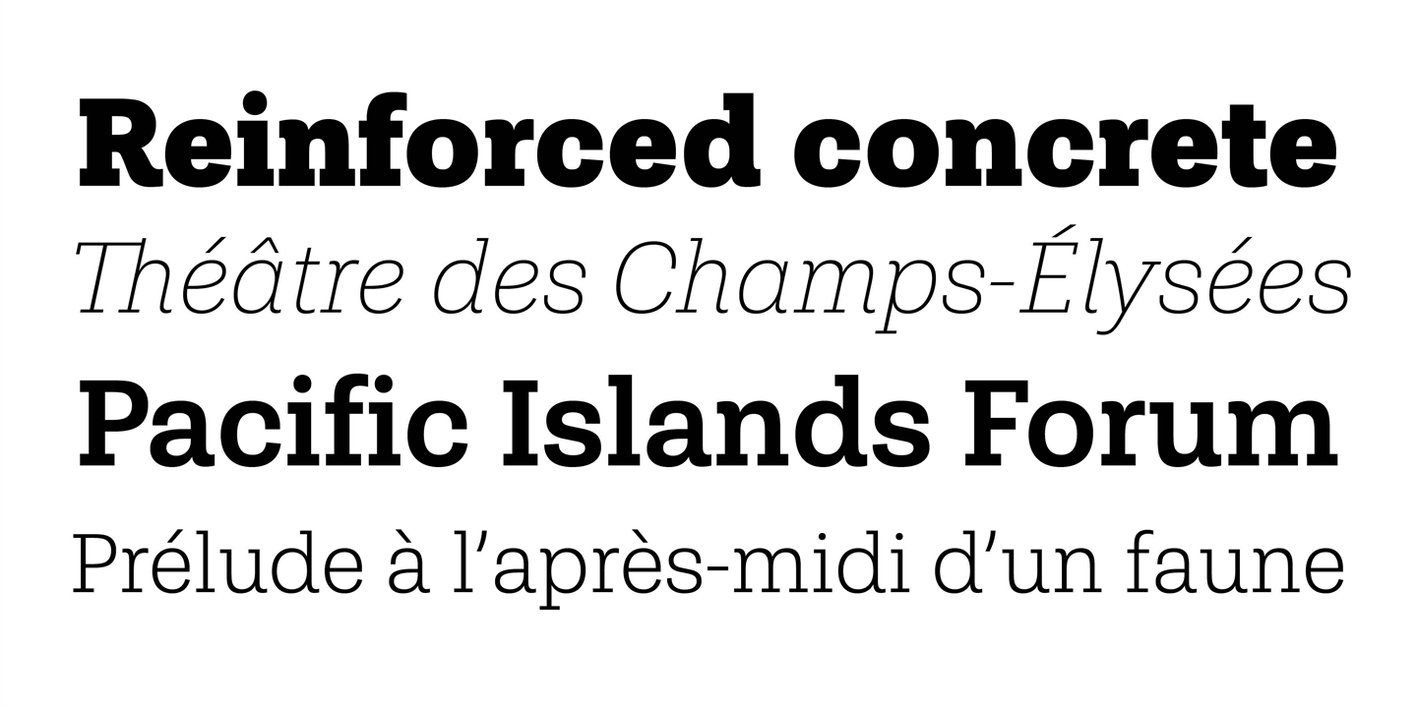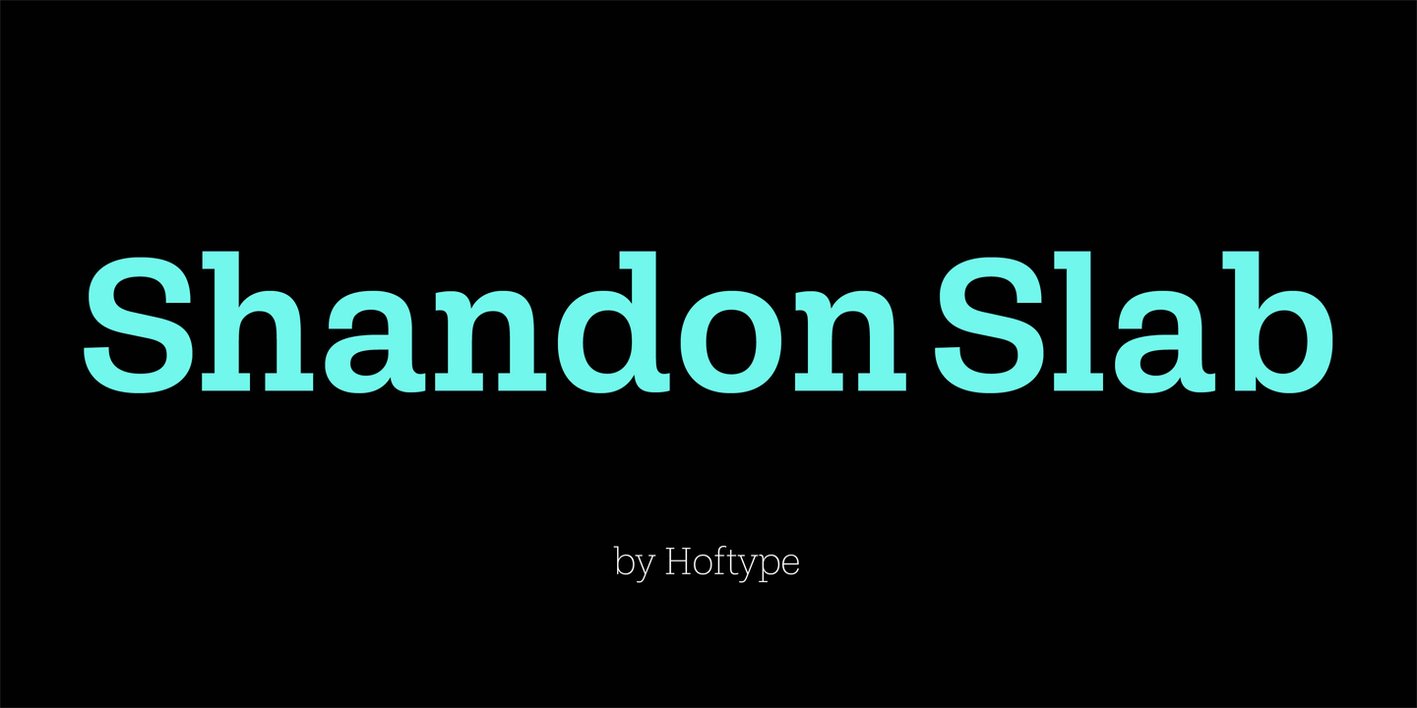
Shandon Slab Font
Shandon Slab Font is perfect for vintage branding, retro posters, industrial design, rustic logos, craft brewery packaging, barbershop signage, western-themed graphics, outdoor adventure brands, construction company materials, woodworking projects, antique shop displays, and rugged design projects that require bold, masculine typography with strong character.
What makes Shandon Slab Font so exciting is its powerful combination of industrial strength and vintage charm that evokes the robust craftsmanship of traditional American typography. This typeface features bold slab serif letterforms with strong, geometric characteristics and substantial weight that creates immediate visual impact and conveys reliability, durability, and authentic craftsmanship. The font's masculine energy and timeless appeal make it perfect for brands that want to communicate strength, heritage, and trustworthiness.
Shandon Slab Font typically comes in multiple weights and styles including Light, Regular, Medium, Bold, and Black variations. Many versions also include condensed widths, decorative alternates, and vintage-inspired ornaments that enhance the font's period authenticity and provide designers with comprehensive tools for creating cohesive retro-themed design systems.
Build powerful brand identity with the commanding presence of Shandon Slab Font Free Download. This robust typeface brings together the best of American industrial typography with contemporary design functionality, making it an essential tool for designers who need to create memorable, authoritative communications that resonate with audiences seeking authenticity and craftsmanship. The font's bold character ensures your projects will stand out with confidence and strength.
Whether you're designing heritage brands, outdoor equipment packaging, or vintage-inspired marketing materials, Shandon Slab Font delivers exceptional impact and credibility that connects with audiences who appreciate traditional values and quality workmanship. Its substantial presence works beautifully in both large display applications and smaller text settings, maintaining its distinctive personality across all sizes.
The powerfully constructed letterforms of Shandon Slab Font demonstrate the finest traditions of slab serif design with modern refinements that ensure optimal performance across contemporary media. Each character has been carefully balanced to deliver maximum impact while maintaining excellent readability, making it particularly valuable for brands that need typography as strong and reliable as their products.